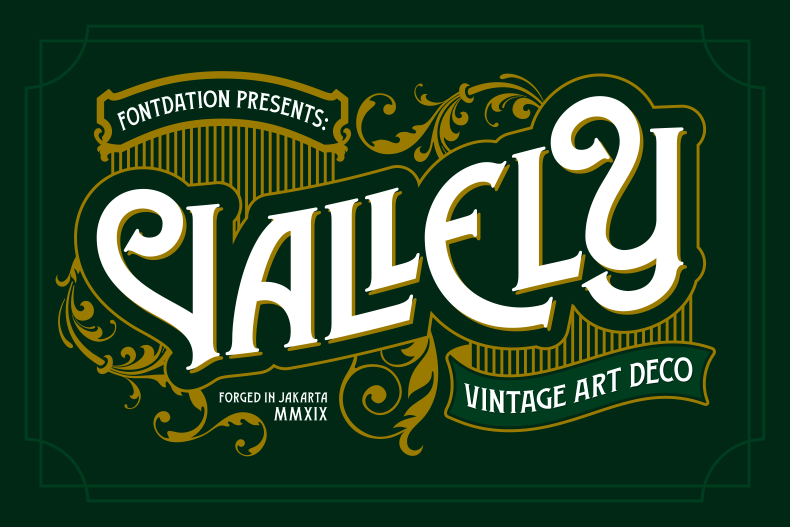
Introducing our new font; Vallely, a classic art-deco-ish serif that are inspired by the old typography/letterings used in packaging labels and advertisements. This font is loaded with 300+ glyphs, packed with lots of alternate characters, gives you various letter combinations to play with. If you're a fan of classic and art-deco ish typography, make sure you add this font to your design toolbox. ----- PS: This font is a demo version, which only contain standard characters (upper, lowercase, numerals and standard punctuations). Purchase the full/commercial version to get the slanted/italic version, multilingual characters, lots of OpenType characters, etc here: https://crmrkt.com/W87BGA ----- THANKS AND ENJOY! |